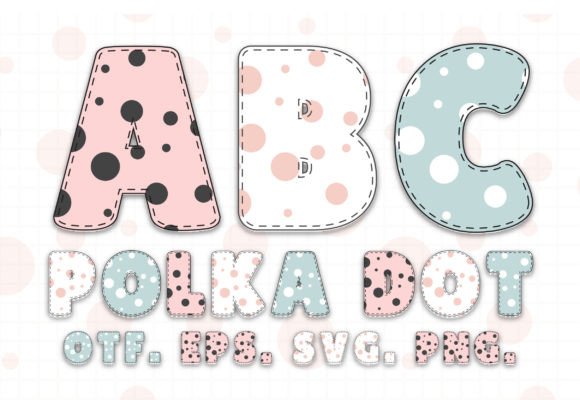
Introducing the Polka Dot Font: the ultimate typographic masterpiece that will revolutionize your designs with its vibrant colors and playful charm. Created by NN-Font Design, this font is a delightful fusion of creativity and style. Whether you're designing a bold logo, eye-catching poster, or captivating social media graphics, the Polka Dot Font is your secret weapon for standing out from the crowd.
With three captivating variations to choose from, the Polka Dot Font offers endless possibilities to unleash your creativity. Type 1 features a mesmerizing combination of pastel pink with contrasting black dots, creating a striking and attention-grabbing visual impact. Type 2 exudes elegance and sophistication, boasting a clean white background adorned with delightful pastel pink dots. If you're looking to create a calming and soothing vibe, Type 3 is perfect with its mesmerizing pastel blue hue complemented by charming white dots.
The Polka Dot Font is more than just a pretty face. It's a powerful tool that adds flair and charm to your creative projects. Its joyful aesthetics will capture the attention of your audience and leave a lasting impression. Whether you're a professional designer or a DIY enthusiast, this font is a must-have for anyone looking to elevate their designs to new heights.
Don't settle for boring and mundane fonts. Step into a world of color, creativity, and captivation with the Polka Dot Font. Let your designs speak volumes and evoke emotions with every stroke. Download this extraordinary font today and witness the transformation of your projects into works of art.
Unleash your creativity. Embrace the power of the Polka Dot Font. Your designs will never be the same again.